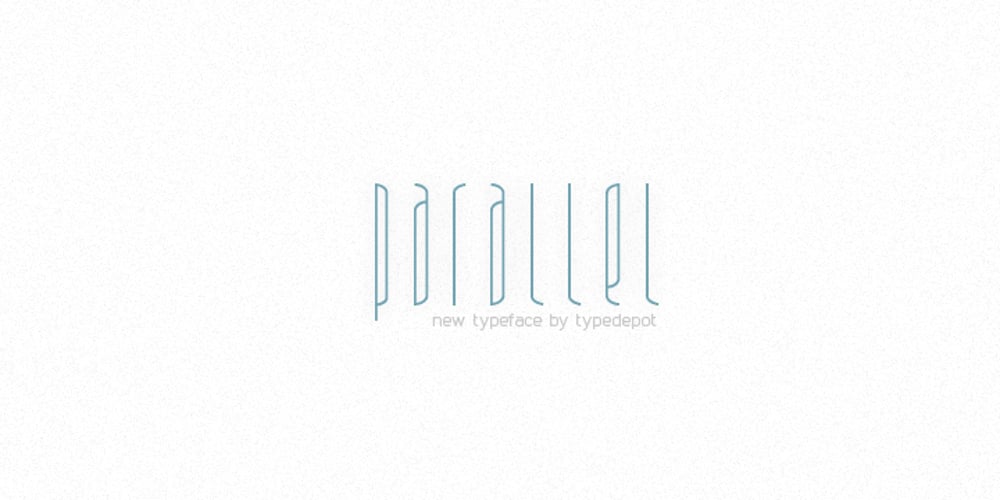
Parallel Font Family was designed by Alexander Nedelev and published by Typedepot. Parallel contains 1 styles and family package options. Parallel is unique quite thin and pretty “expressive” typeface, designed in order to serve the fashion industry. It also works pretty well as a typeface for print, headlines and identity issues.